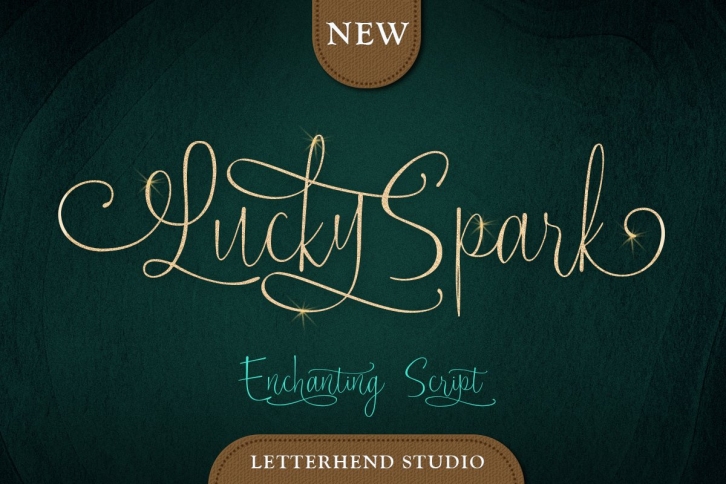
Lucky Spark Script is a beautiful font that was designed by Letterhend. It's a great choice for designers and creatives who need such a font. It was released on October 20, 2020 and the file size is 4.61 MB. Lucky Spark Script may give a more youthful, expressive and casual look to your project. It is a very beautiful, refined, elegant, and high-quality font.